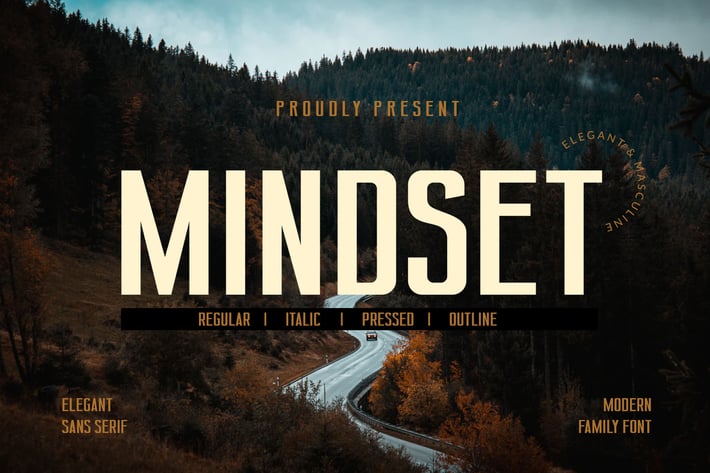
Mindset Business Corporate Font
MINDSET is a special font for your logo & branding.
Every character is designed for a good logo, so not suitable for a long text.
You can make your logo easily, and use your logo on your website, prints, magazine, poster, and many design projects
Every character is designed for a good logo, so not suitable for a long text.
You can make your logo easily, and use your logo on your website, prints, magazine, poster, and many design projects